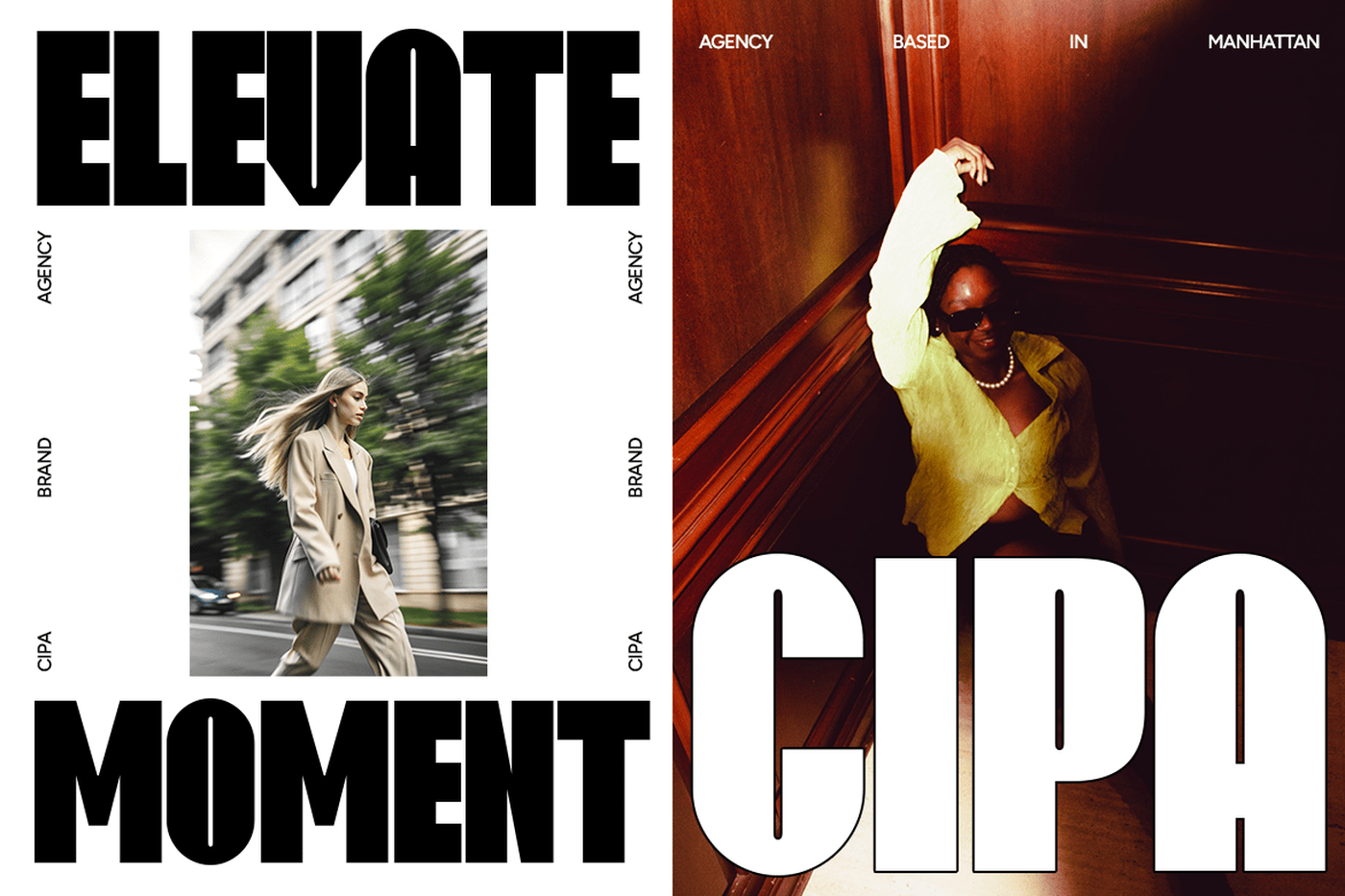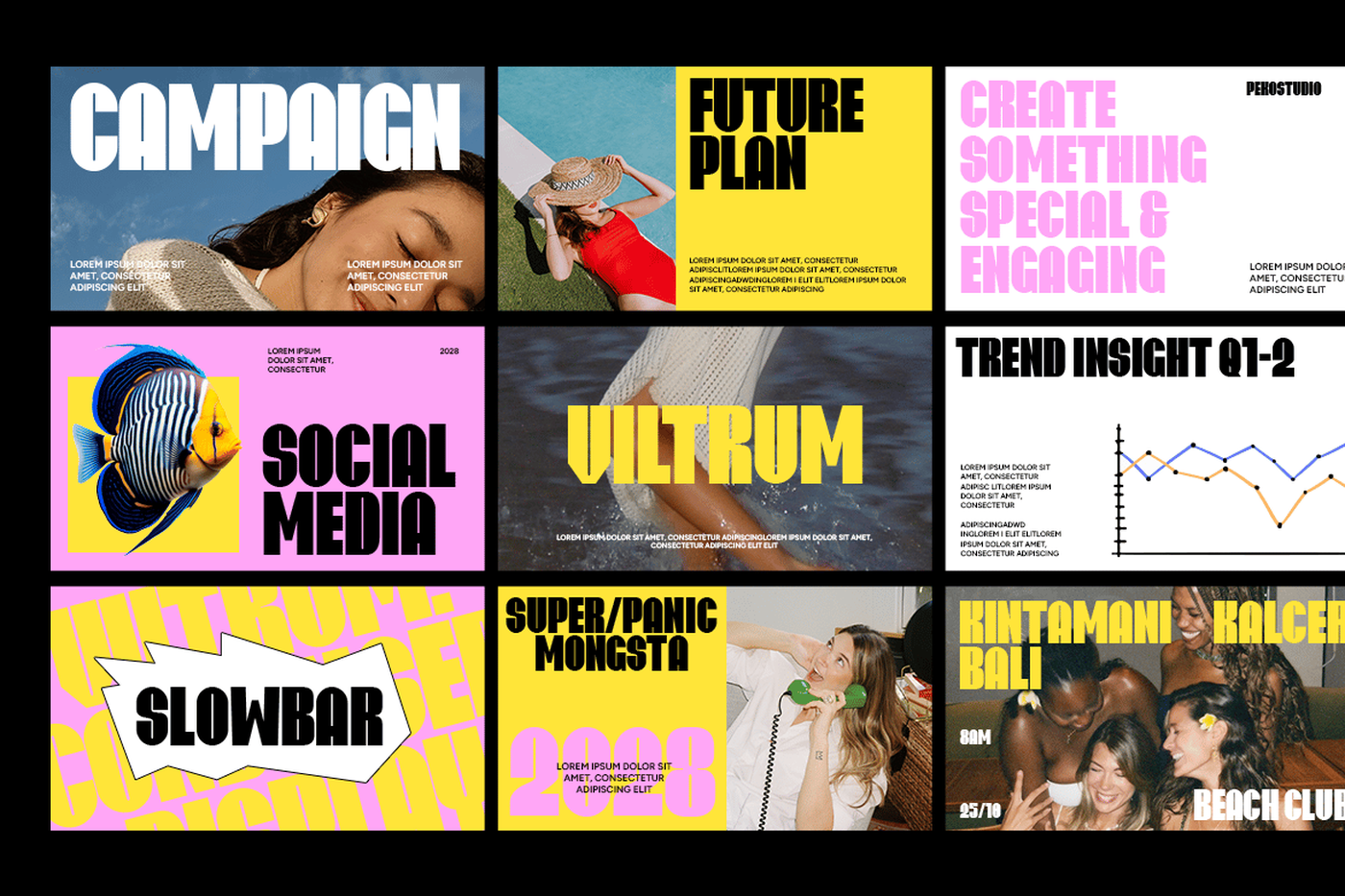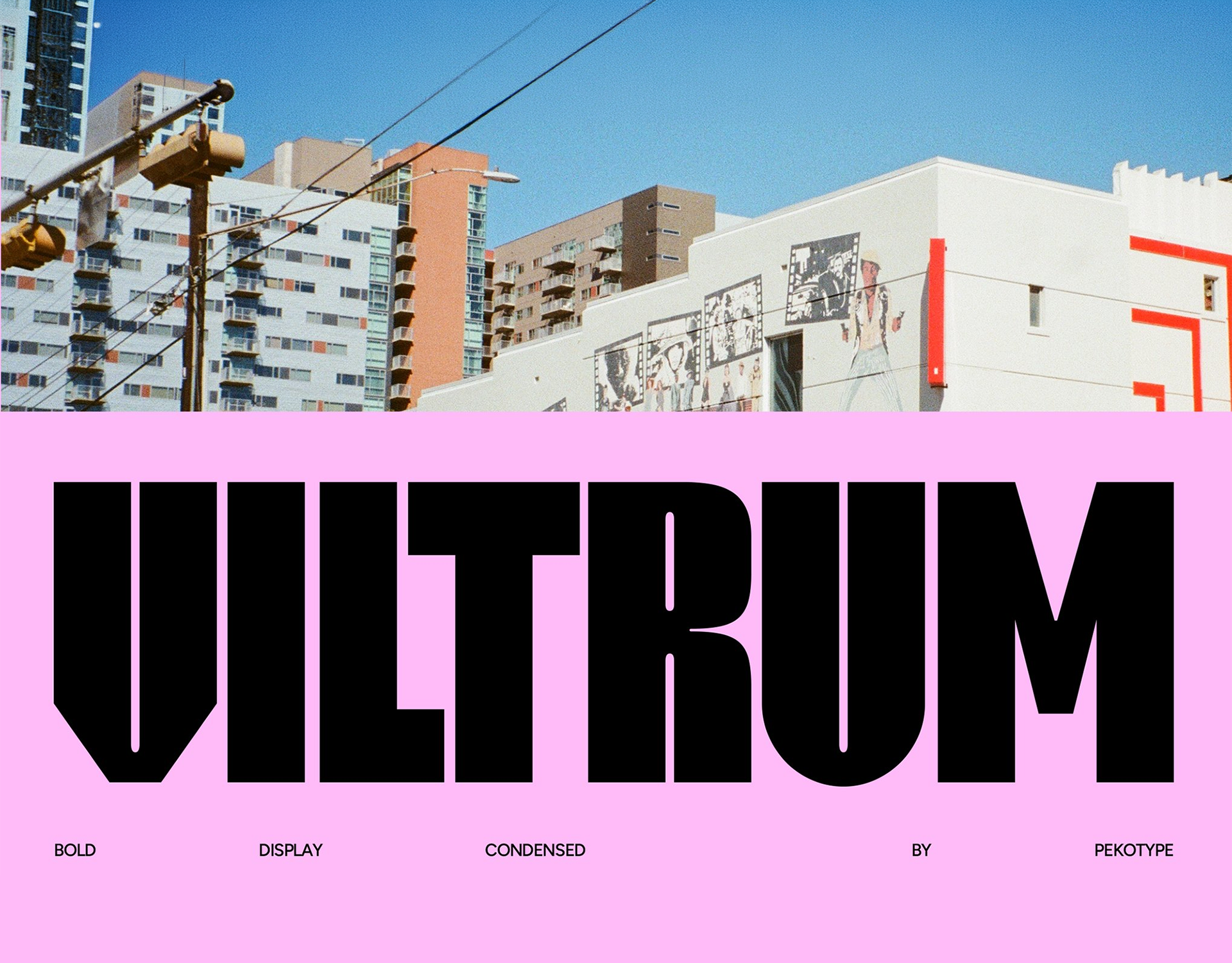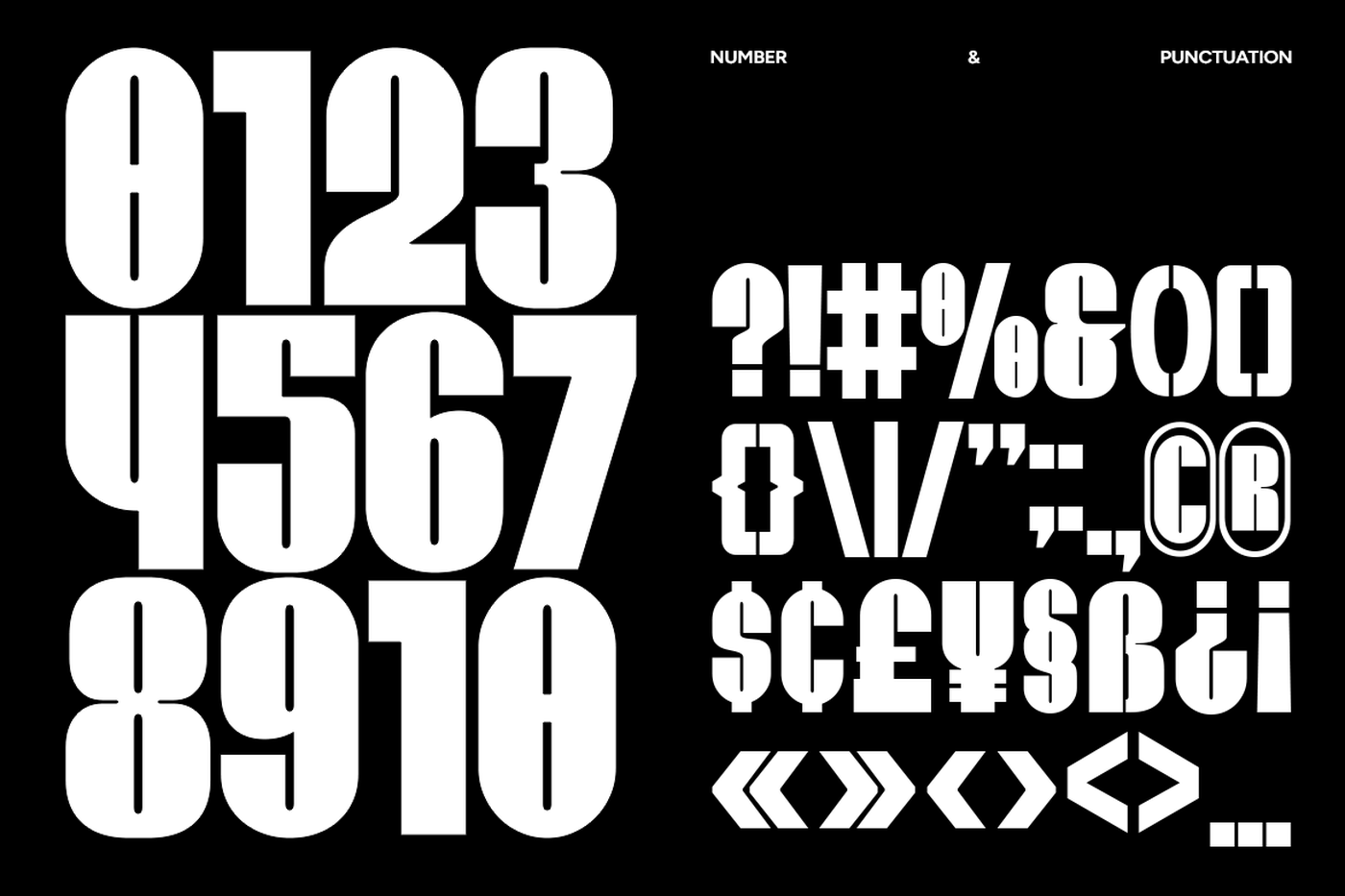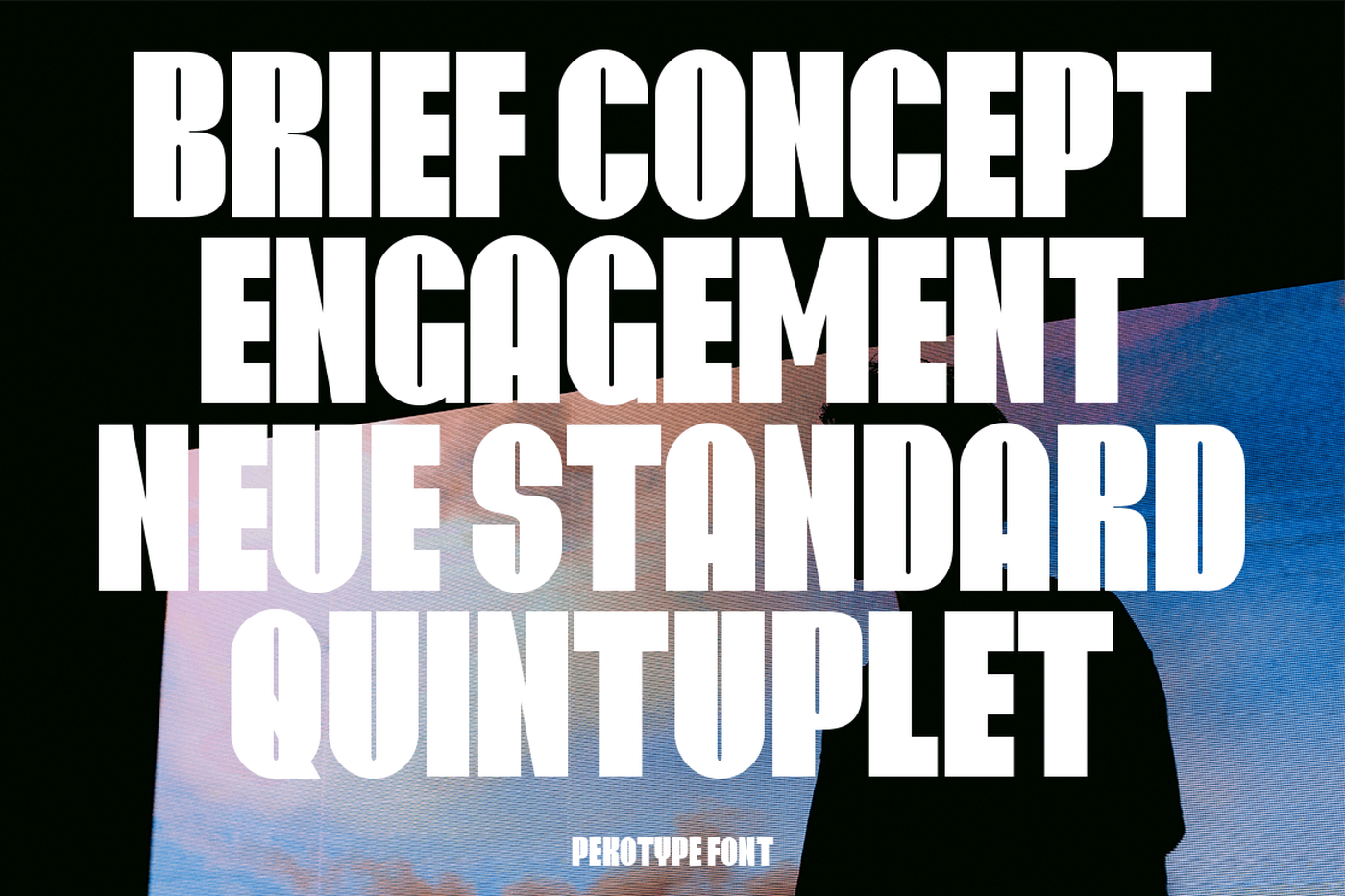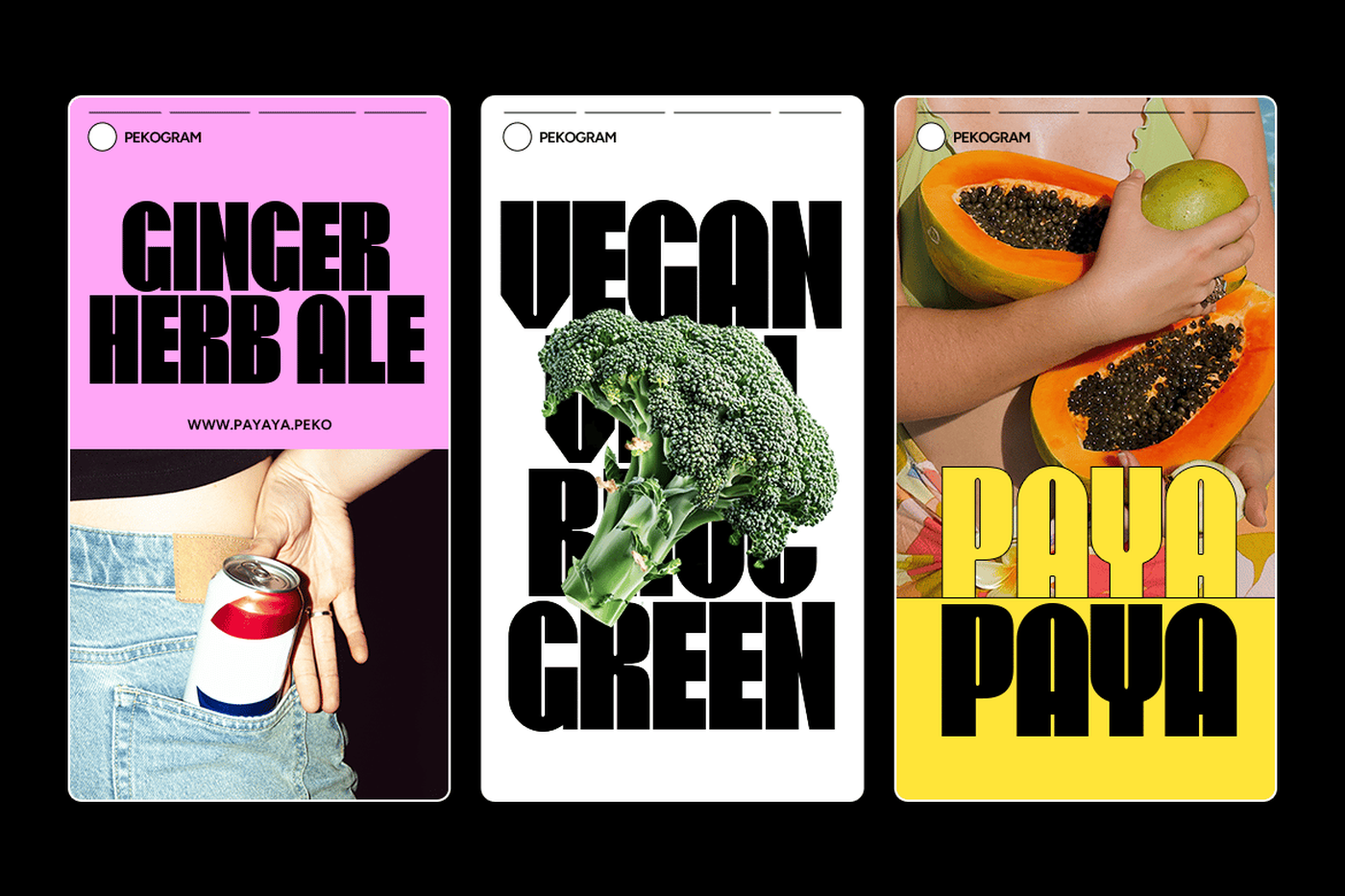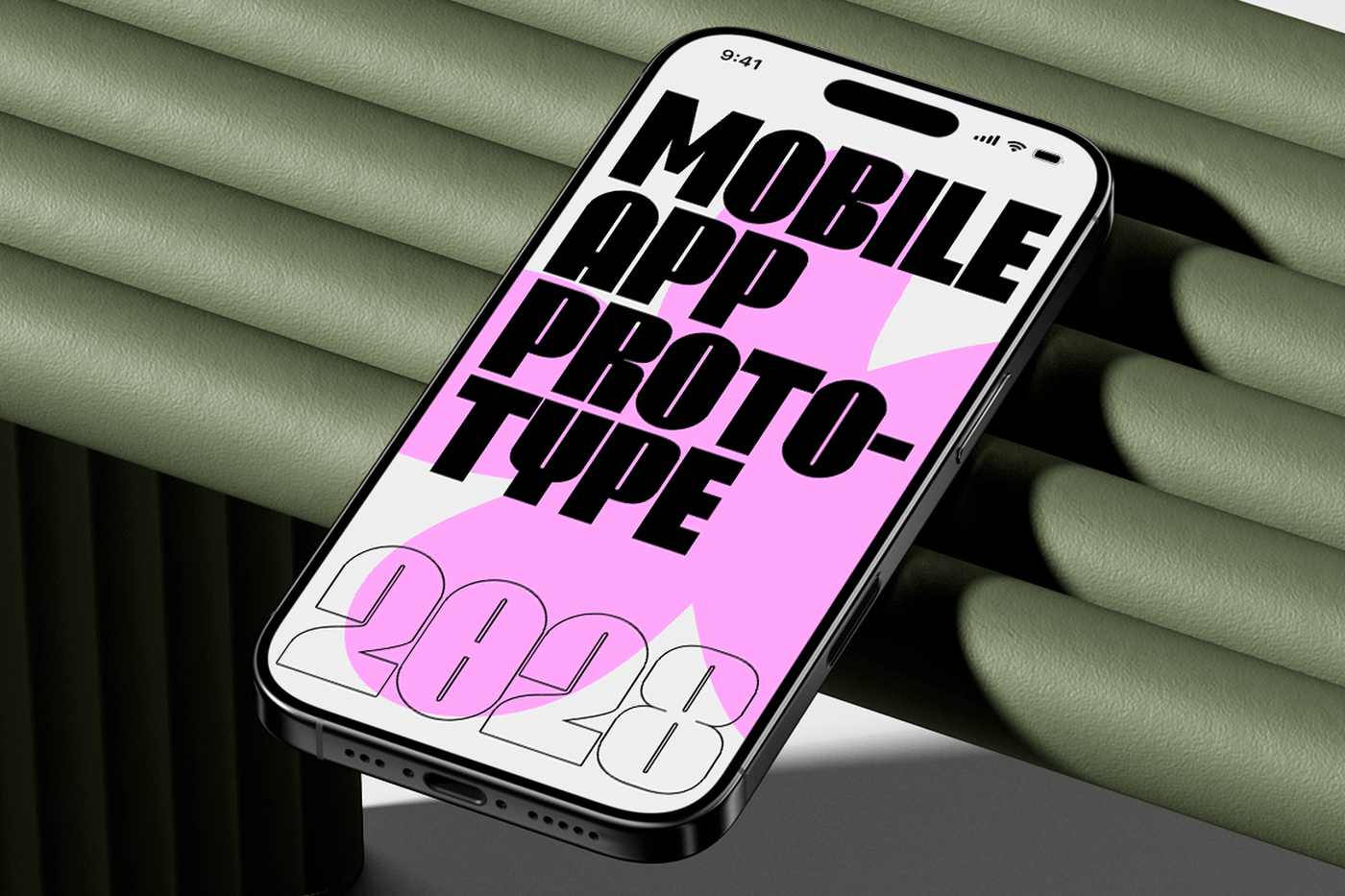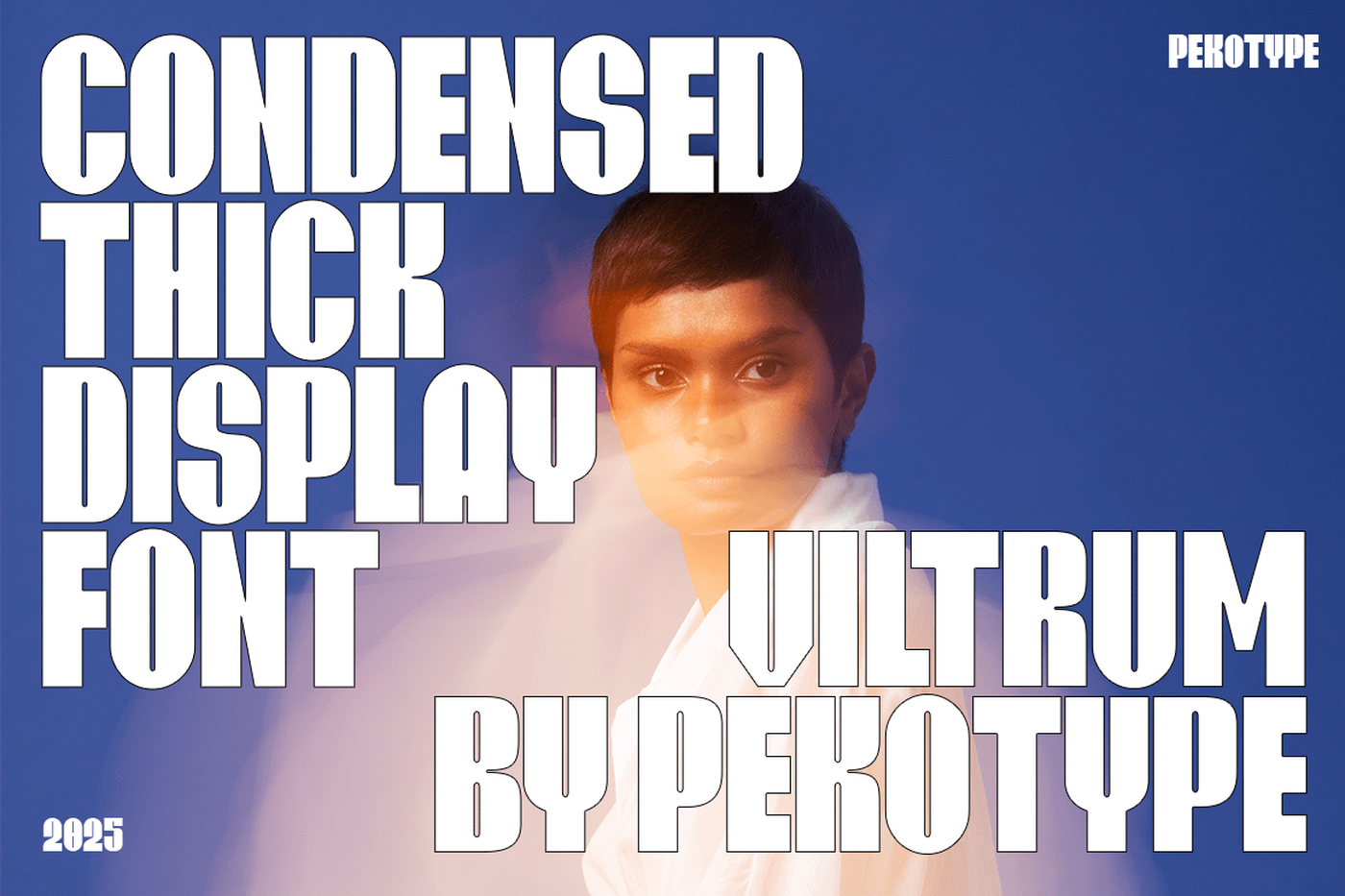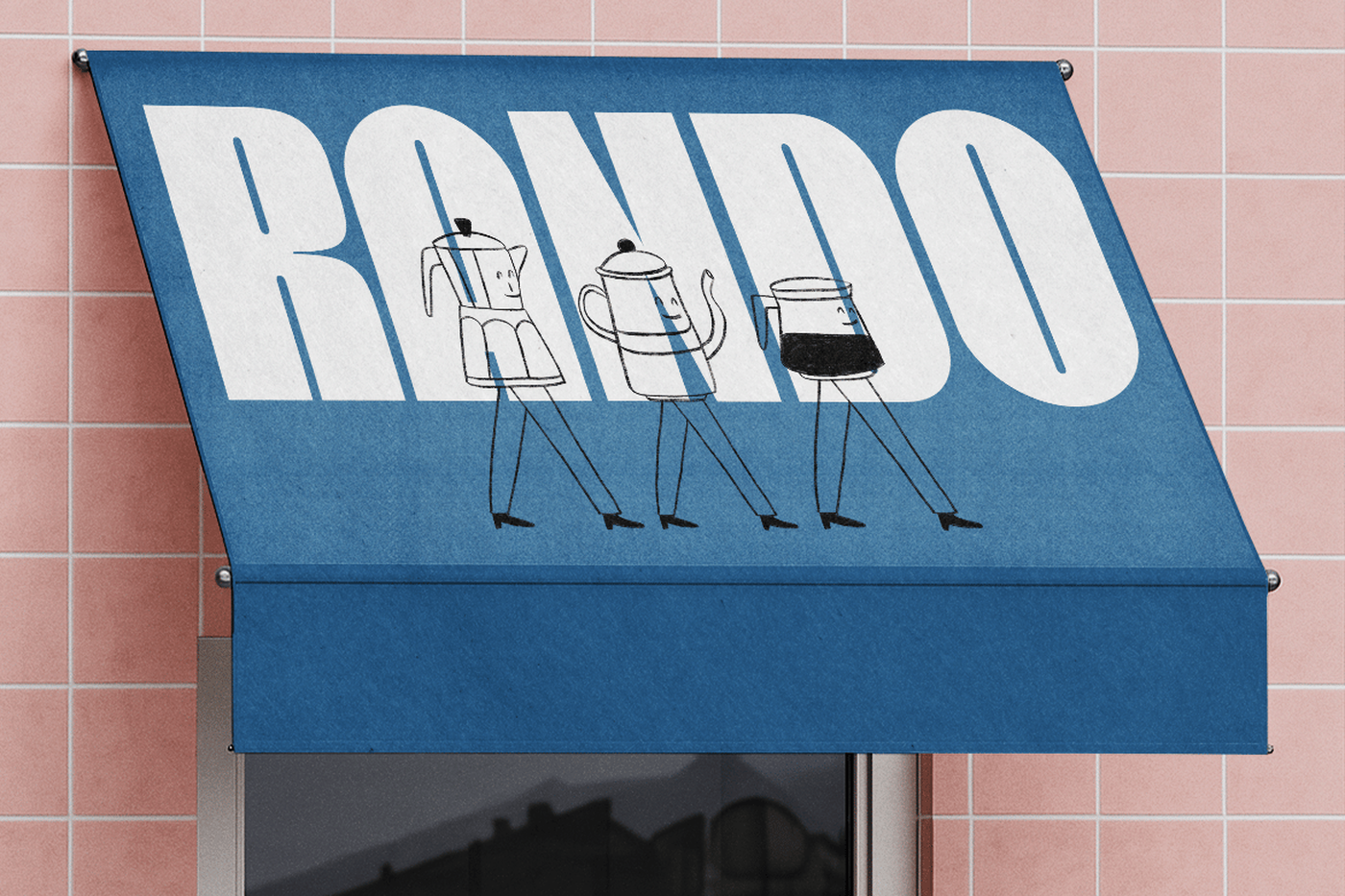
VILTRUM - Bold Condensed Font
VILTRUM is a bold all caps condensed font designed to make a powerful visual impact. With its thick strokes, modern condensed style, and striking display design, this font is perfect for projects that demand attention and strong branding. Ideal for logos, posters, headlines, packaging, marketing campaigns, and social media content, VILTRUM delivers a clean yet bold statement that elevates any design. Its all caps format ensures consistency and impact, making it a great choice for both creative and professional projects.
Designer: Peko Type
Font: VILTRUM